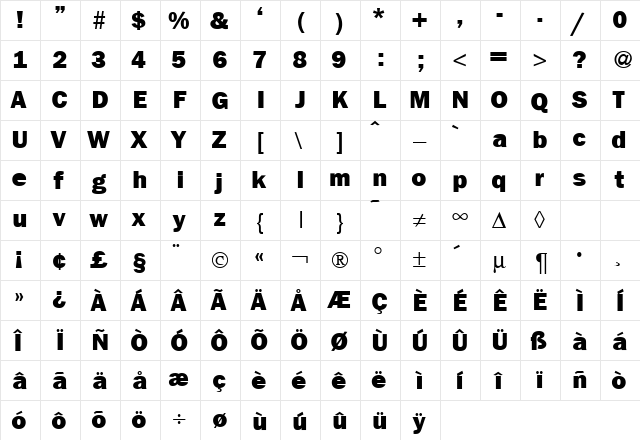
FranklinGothicNewHeavy Regular Font Preview
FranklinGothicNewHeavy Regular
Design Context for FranklinGothicNewHeavy Typeface
FranklinGothicNewHeavy has the quiet confidence of well-executed sans-serif typography: versatile, unobtrusive, and dependable at any size.
Font Pairing: Works well alongside a characterful serif or display font that can carry the expressive load while FranklinGothicNewHeavy handles the functional copy.
Pro Tip: Pair FranklinGothicNewHeavy with a display or serif font for headlines — its neutral character makes it an excellent supporting player in complex typographic systems.